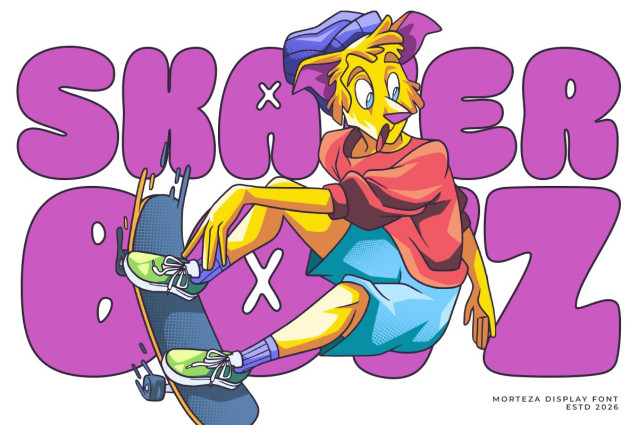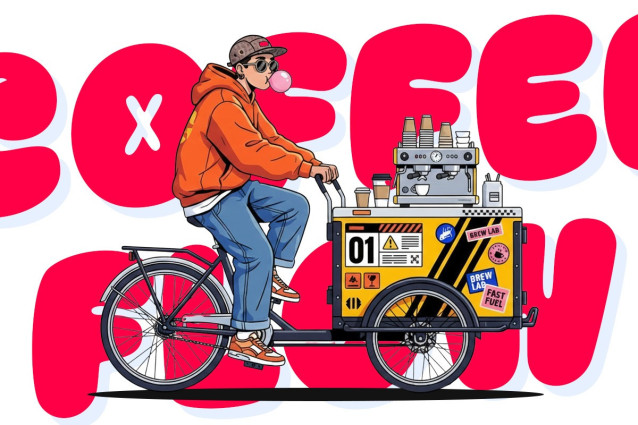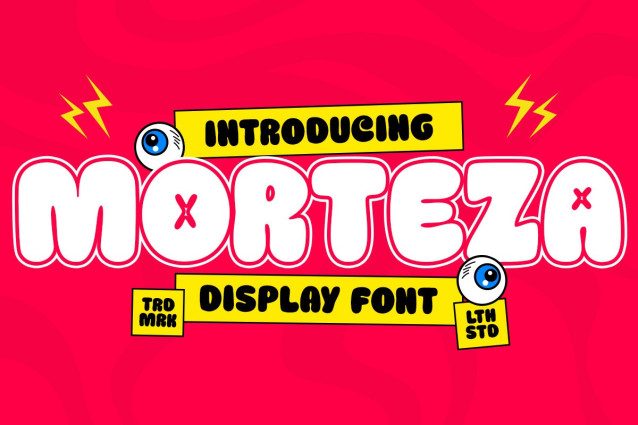
Morteza Font
Morteza Font is a bold, bubbly display font with a retro-cartoon vibes—full of chunky curves, and playful quirkiness. The letters pop like comic candy, giving off a fun, energetic vibe that feels mischievous yet friendly.